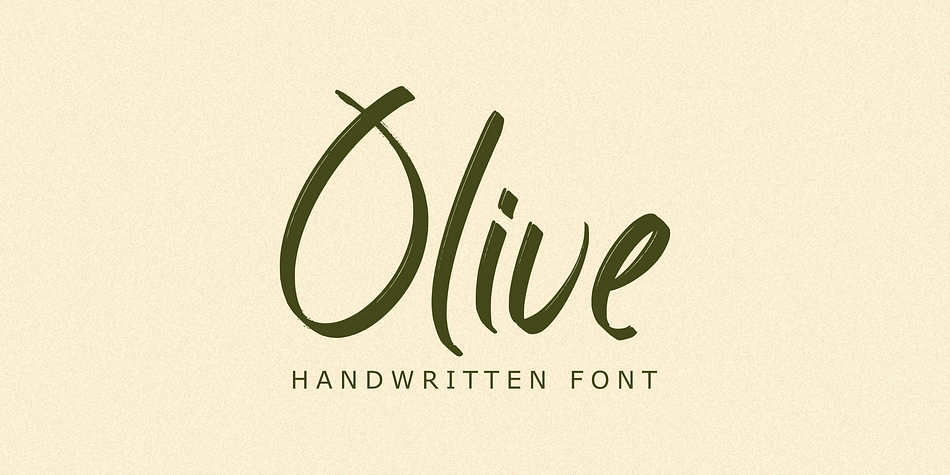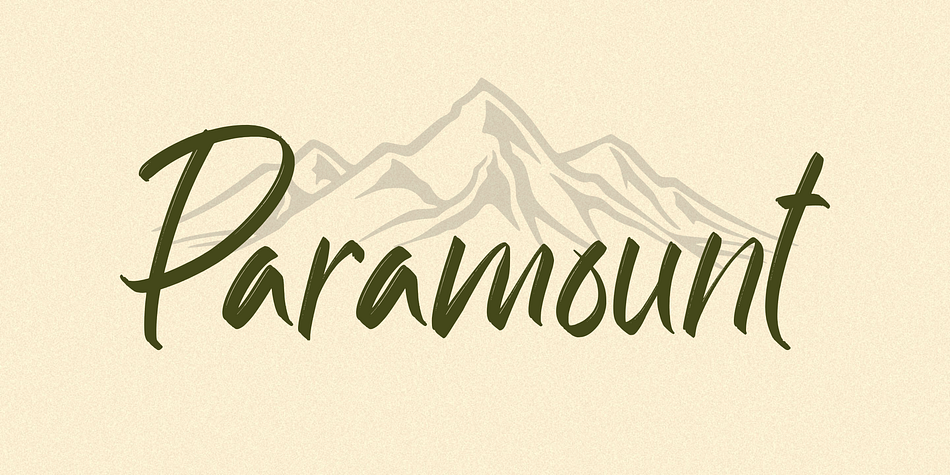
Olive
Olive is a brush display font family published by Omotu Studio.
Olive! A handwritten script font. Olive font is perfect for branding, logotype, apparel, T-shirt, Hoodie, product packaging, quotes, flyer, poster, etc.
- Uppercase and lowercase characters
- Supports international languages
- Numerals, punctuations, ligatures